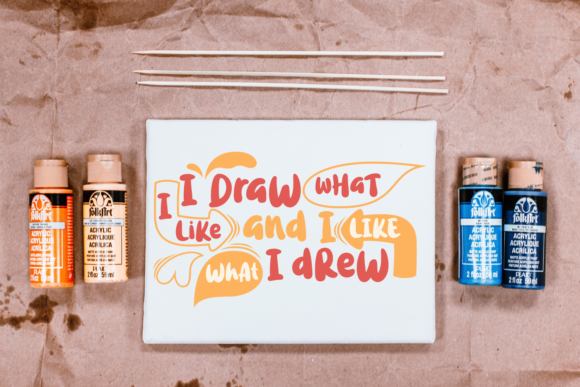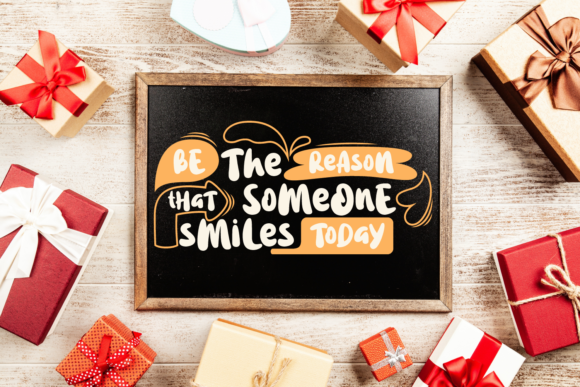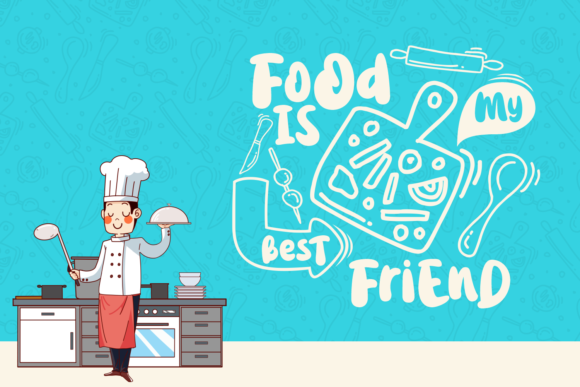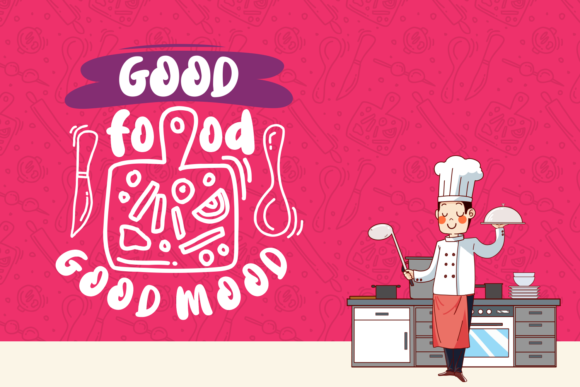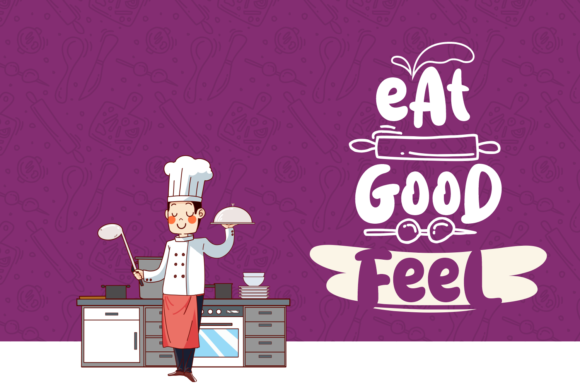
Discover the Whimsical Charm of Do Not Forget to Eat Font
Are you tired of using the same old fonts in your designs? Look no further! Do Not Forget to Eat is a delightful script font that is sure to capture your heart with its bold characters and adorable doodles. In this article, we’ll dive into the unique features of this charming font and explore how you can incorporate it into your design projects.
A Font that Stands Out from the Crowd
Do Not Forget to Eat is a one-of-a-kind script font that boasts bold, eye-catching characters. Its unique design makes it perfect for adding a touch of personality to your designs. Whether you’re working on a branding project, creating social media graphics, or crafting invitations, this font is sure to make your work stand out.
The Charming Appeal of Do Not Forget to Eat
So, what makes Do Not Forget to Eat so charming? For starters, its bold characters are sure to grab attention. But it’s the extra doodles that really set this font apart. The whimsical doodles add a playful touch to your designs, making them perfect for projects that require a bit of personality. Imagine using this font to create a fun and quirky brand identity or to add a touch of whimsy to your social media graphics.
Do Not Forget to Eat is a versatile font that is perfect for both designers and crafters. Whether you’re a professional designer or a DIY crafter, this font is easy to use and can add a touch of personality to your projects. Use it to create:
- Social media graphics, like Instagram posts and Facebook covers
- Invitations, like birthday party invites or wedding announcements
- DIY crafts, such as handmade cards or scrapbooking projects
Tips for Using Do Not Forget to Eat
To get the most out of Do Not Forget to Eat, here are a few tips to keep in mind:
- Use it sparingly: While Do Not Forget to Eat is a beautiful font, it’s best used in moderation. Use it as an accent font to add a touch of personality to your designs.
- Pair it with a neutral font: To create visual interest, pair Do Not Forget to Eat with a neutral font, like a clean sans-serif font.
- Experiment with colors: Do Not Forget to Eat looks great in a variety of colors. Experiment with different hues to find the perfect color scheme for your project.
Do Not Forget to Eat is a charming script font that is sure to capture your heart. With its bold characters and adorable doodles, it’s the perfect addition to any design project. Whether you’re a designer or crafter, this font is easy to use and can add a touch of personality to your work. So why not give it a try? Download Do Not Forget to Eat today and discover the whimsical charm it can bring to your designs!
Key Features of Do Not Forget to Eat Font
- Unique script font with bold characters
- Adorable doodles add a playful touch
- Perfect for branding, social media graphics, invitations, and DIY crafts
- Easy to use and versatile
- Great for adding a touch of personality to your designs
Fall in love with the charming appeal of Do Not Forget to Eat font and take your designs to the next level!